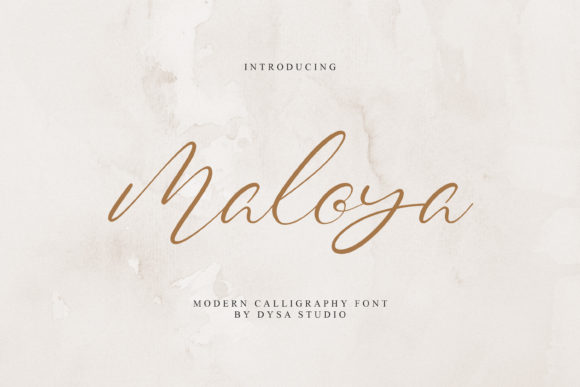
Introducing Maloya, an enchanting script font that will captivate your designs with its alluring curves and delicate details. Especially crafted for the discerning taste of ebook designers, Maloya seamlessly blends tradition with modern flair, making it the perfect font for creating captivating digital masterpieces.
With every stroke of Maloya, you'll evoke a sense of sophistication and timeless elegance. Its stylish alternates and ligatures dance harmoniously, adding an extra touch of artistry to your words. Whether you're crafting an immersive novel, an engaging nonfiction narrative, or a captivating social media post, Maloya will elevate your content to new heights.
Step into a world of endless creative possibilities with Maloya. Its versatility allows you to effortlessly craft eye-catching headlines, alluring subheadings, and captivating body text. The font's enchanting flow will guide your readers through your stories, creating an unforgettable and immersive reading experience.
Let Maloya be your muse as you craft ebooks that stand out from the crowd. Its ability to capture emotions and ignite imaginations will leave a lasting impression on your audience. With Maloya, your words will not only convey information but also evoke a symphony of emotions, captivating readers from the very first glance.